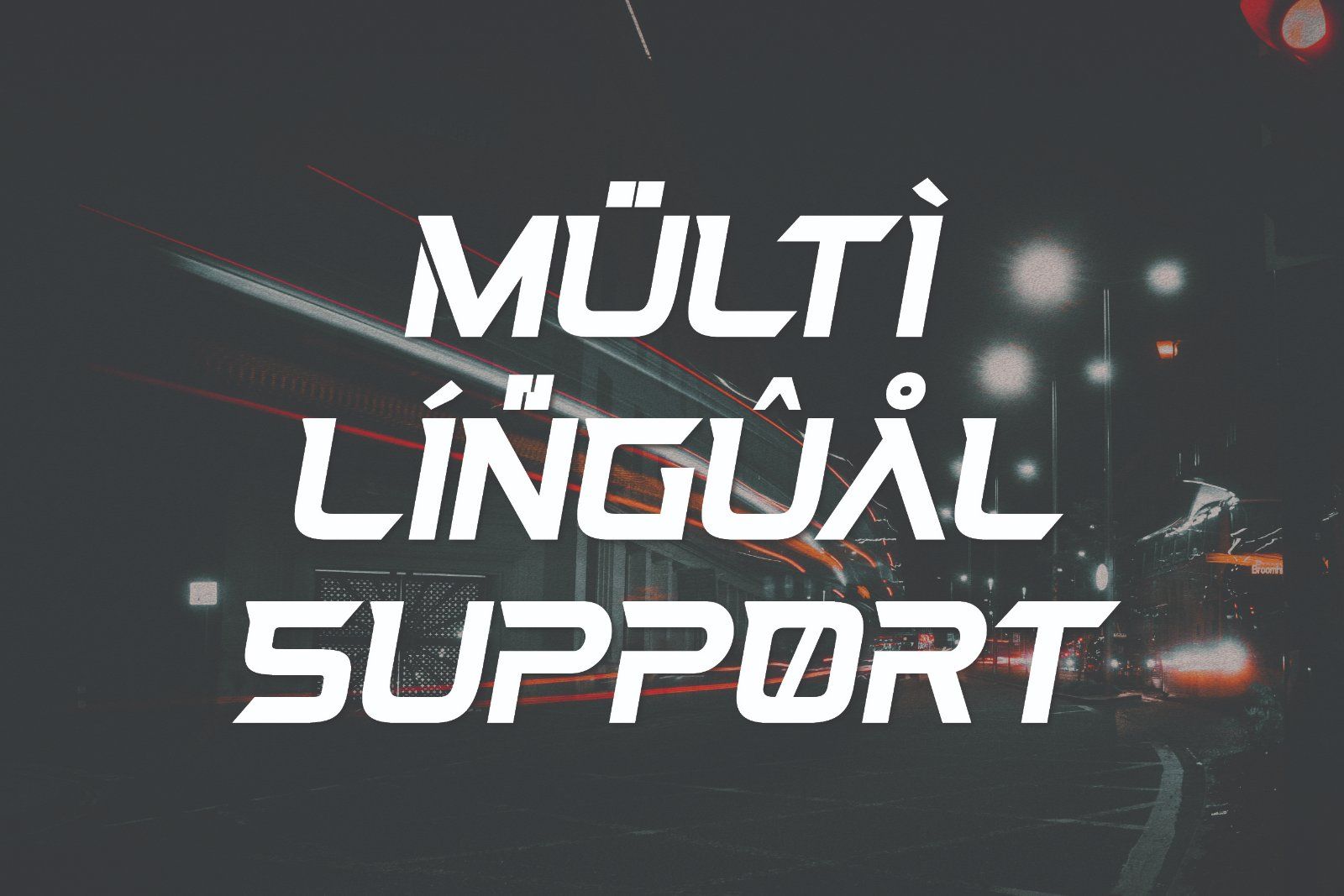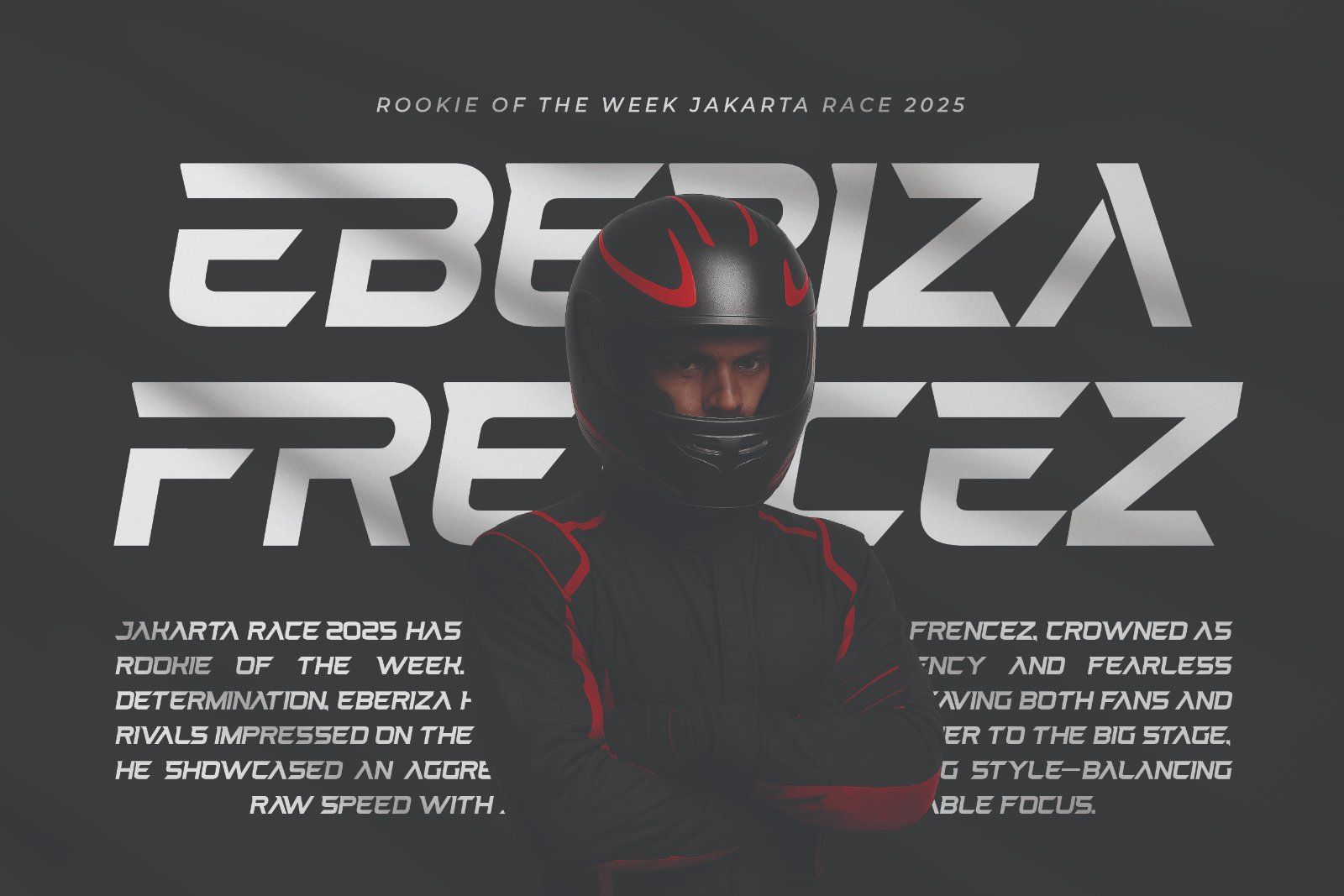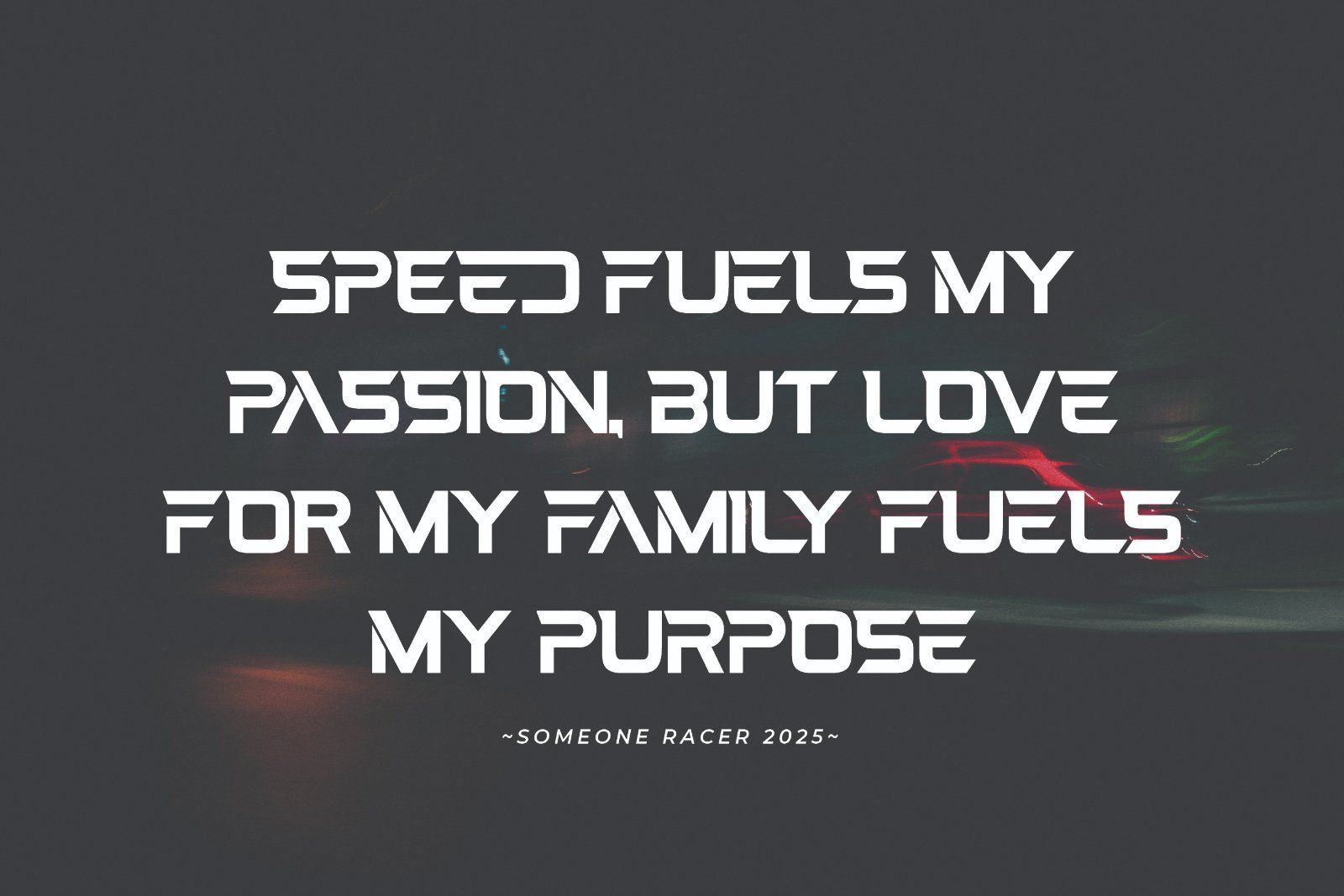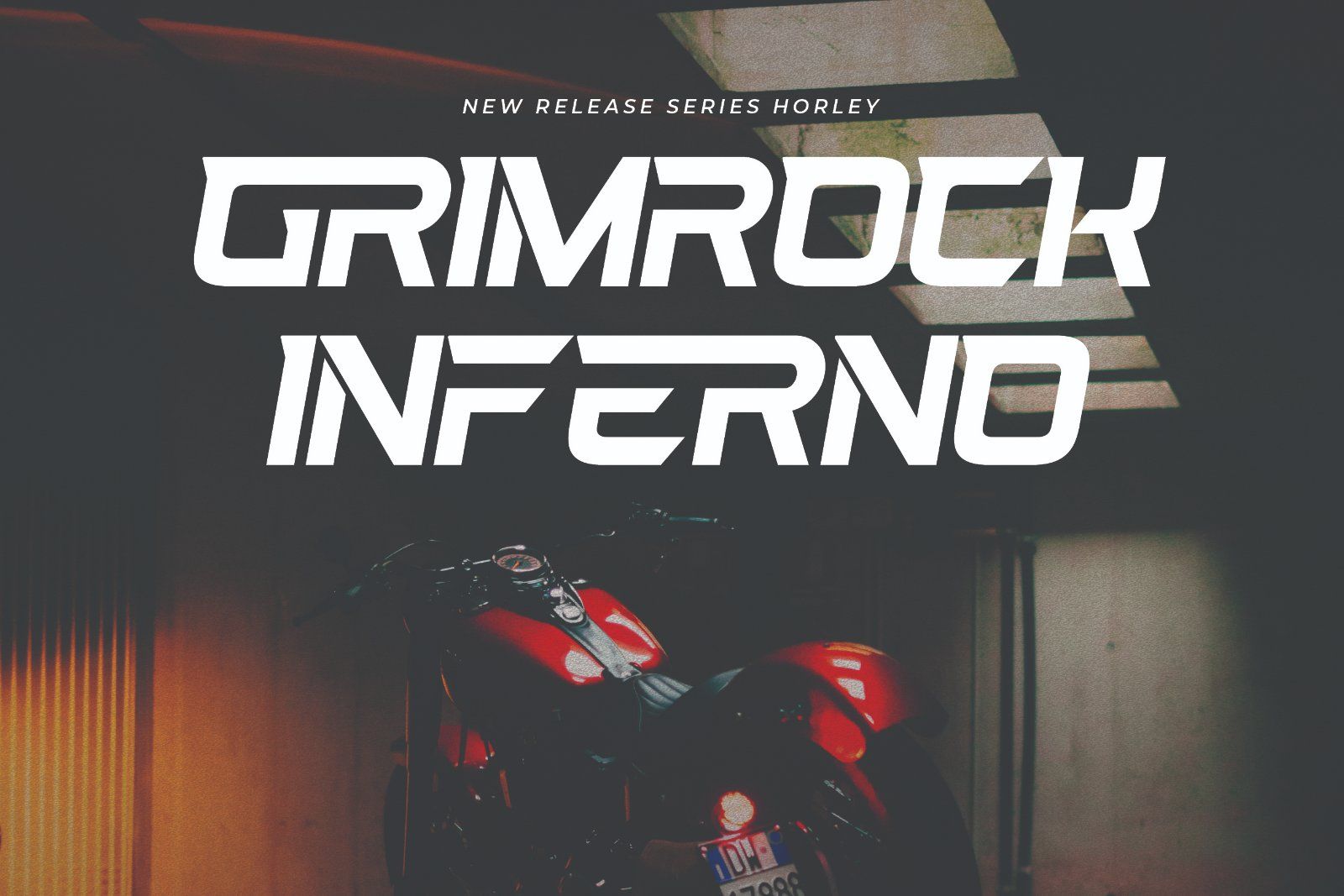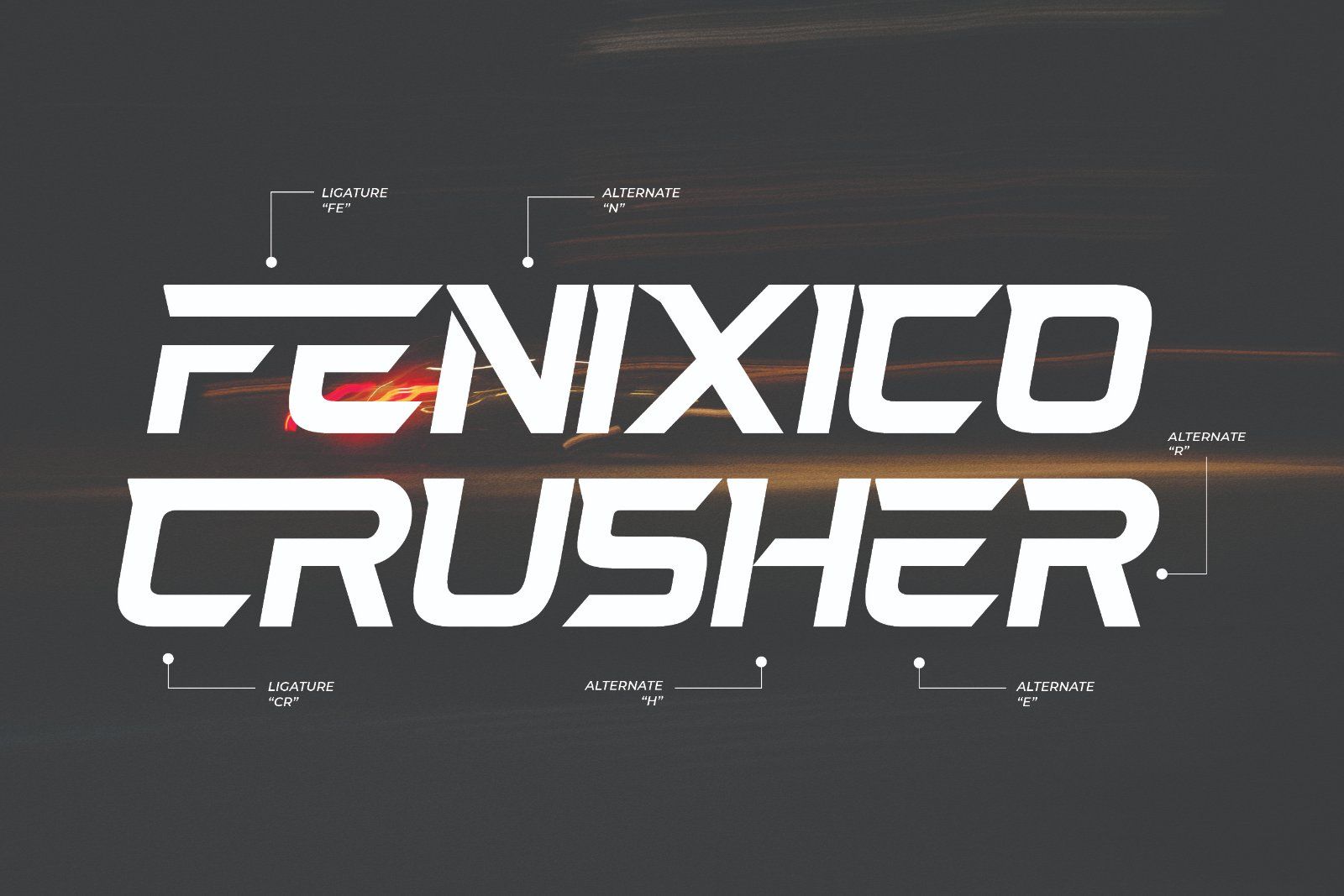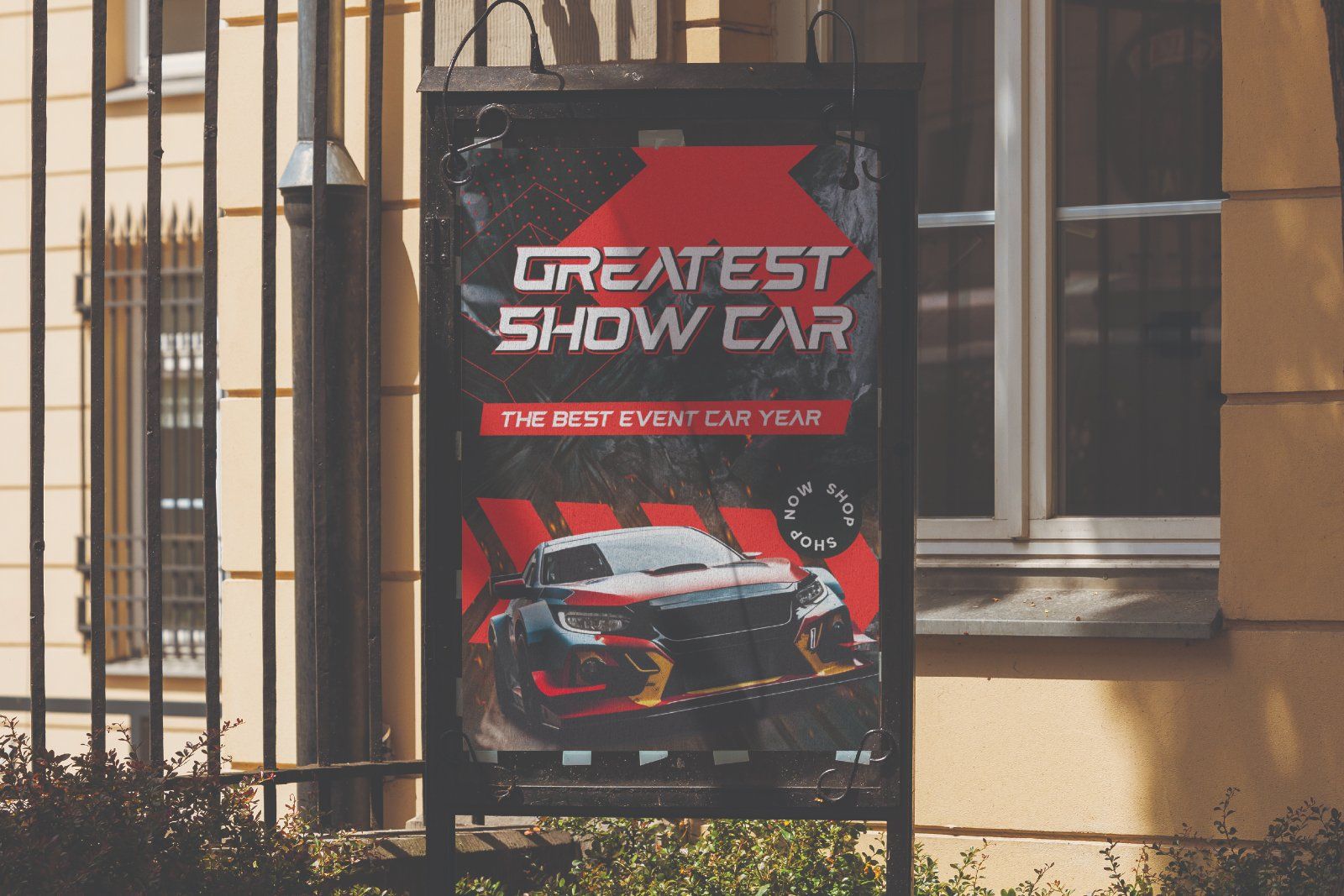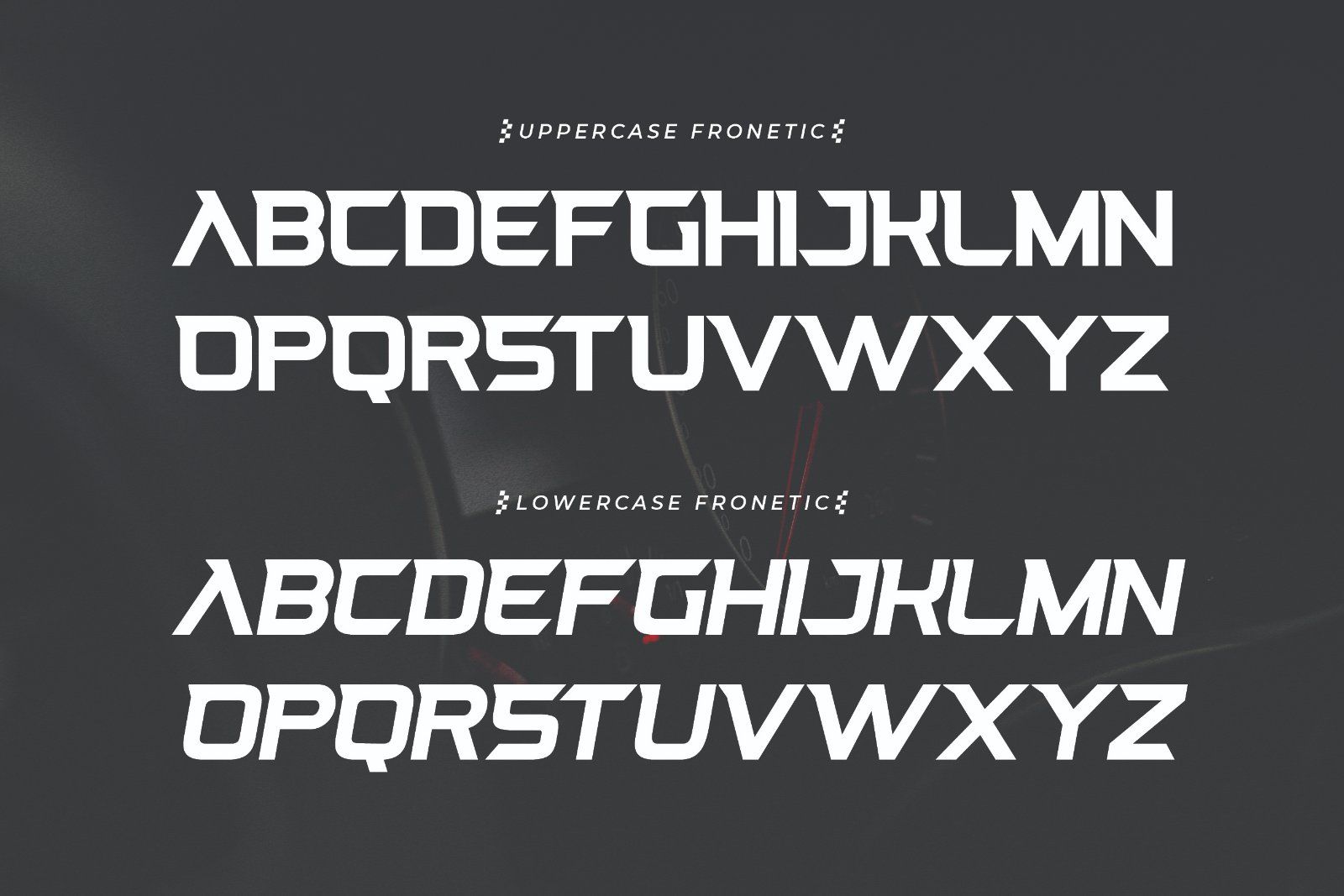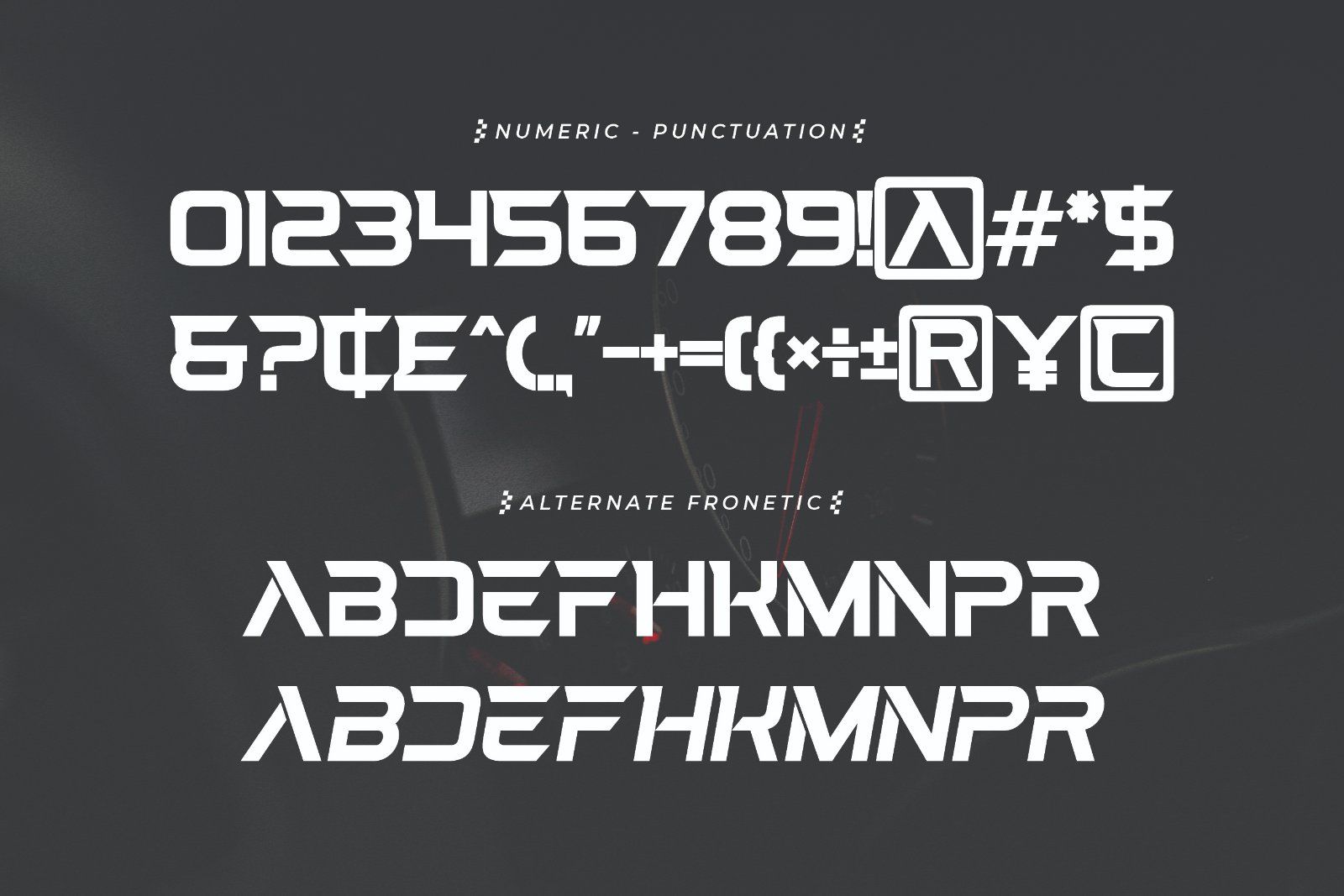
MarketplaceFontsFronetic - Modern Sports Font
Fronetic is a bold and dynamic modern sport font built to capture speed, energy, and power. With its sharp angles, clean cuts, and futuristic look, Fronetic is designed to bring a strong competitive edge to your projects. Perfect for sports branding, racing themes, logos, posters, apparel, and headline designs, Fronetic delivers a fast-paced and energetic style that stands out in any modern design arena.
• Uppercase alphabet A-Z
• Lowercase alphabet a-z
• Numbers 0-9
• Some punctuation
• Some Alternates and Ligatures